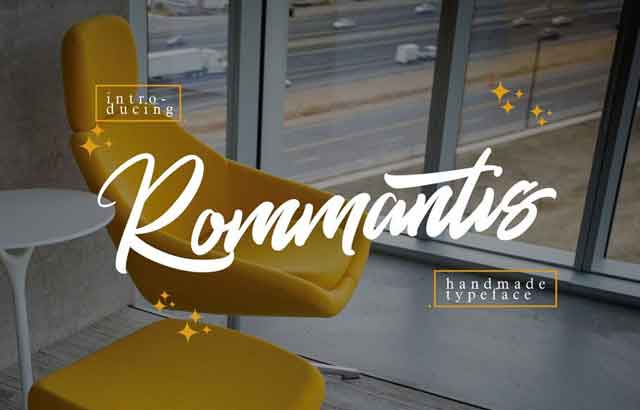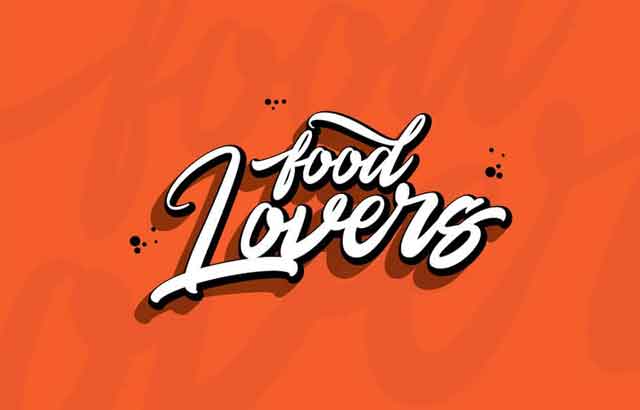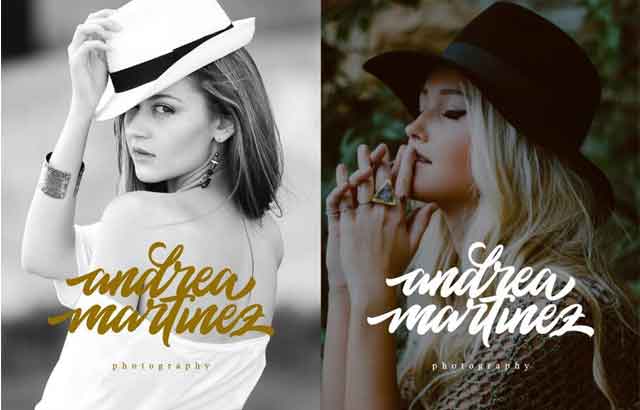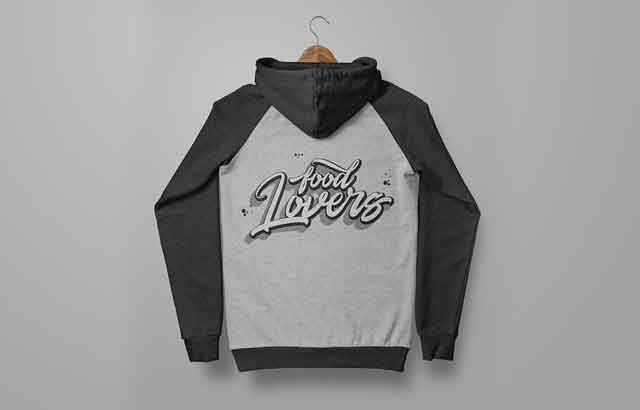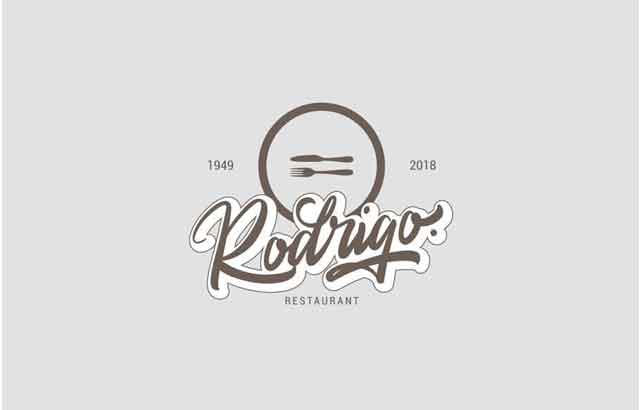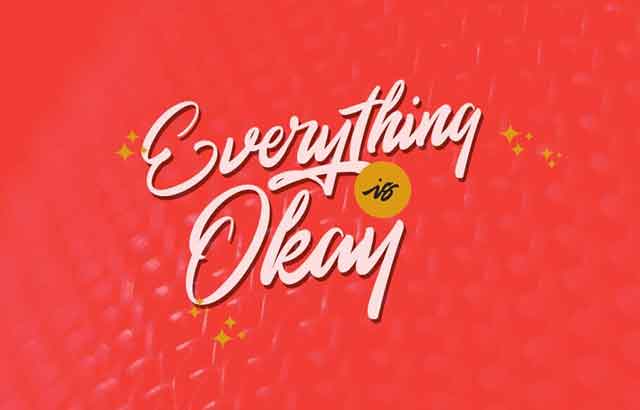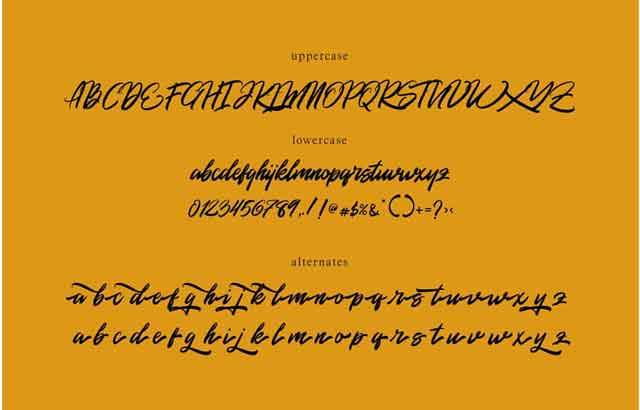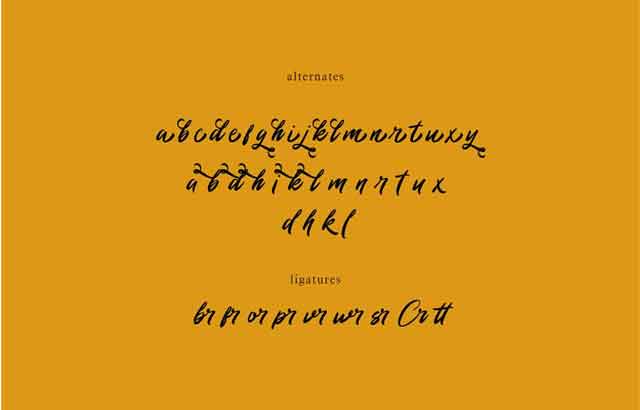
Hello…!! Great to see you :). Welcome to my new typeface. This is Rommantis Script font, the display hand brush lettering, simple and easy to create awesome lettering, just type your words and then you will immediately see the great results.
Rommantis Script is the hand-type font, every single letter has been carefully crafted to make your text looks beautiful. With a modern style, this font will perfect for many different project ex: quotes, blog header, poster, wedding, branding, logo, fashion, apparel, letter, invitation, stationery, etc.
The Rommantis Script features:
• Uppercase & lowercase.
• Stylistic alternatives.
• Ligatures.
• Initials & finals.
• International characters (Multilingual).
• Punctuation & symbols.